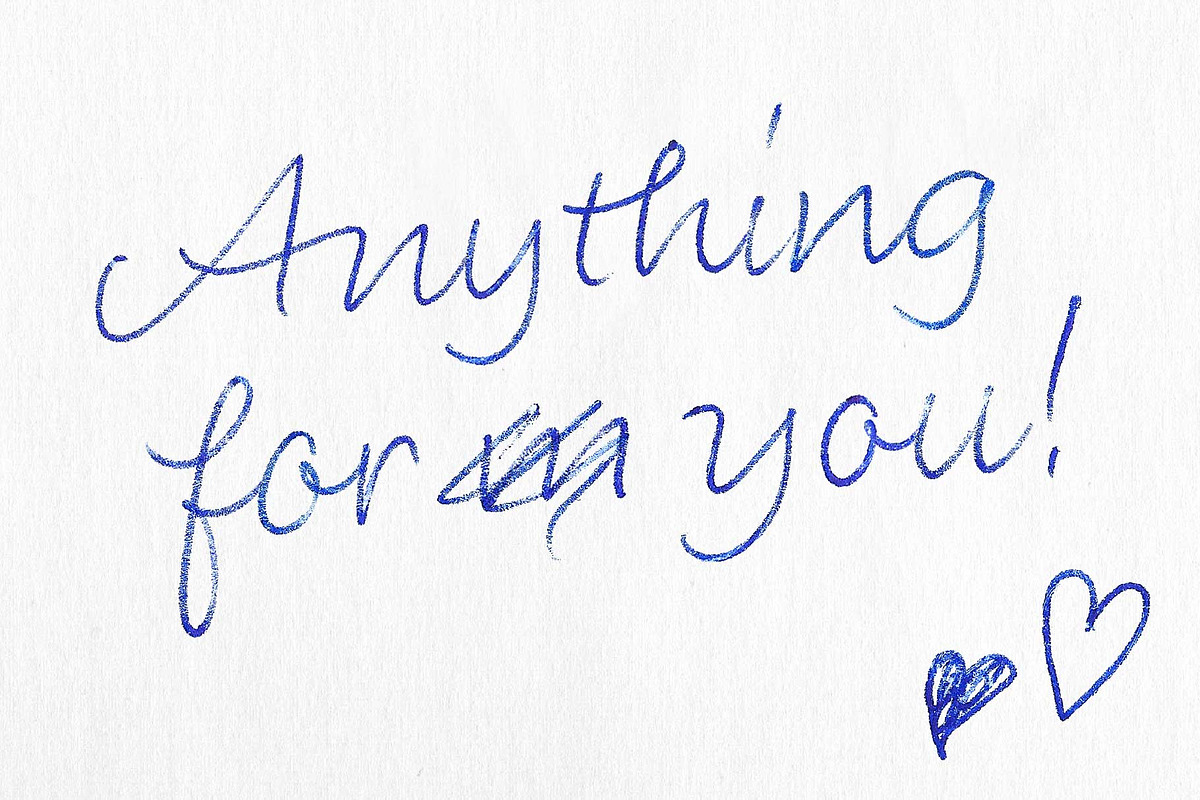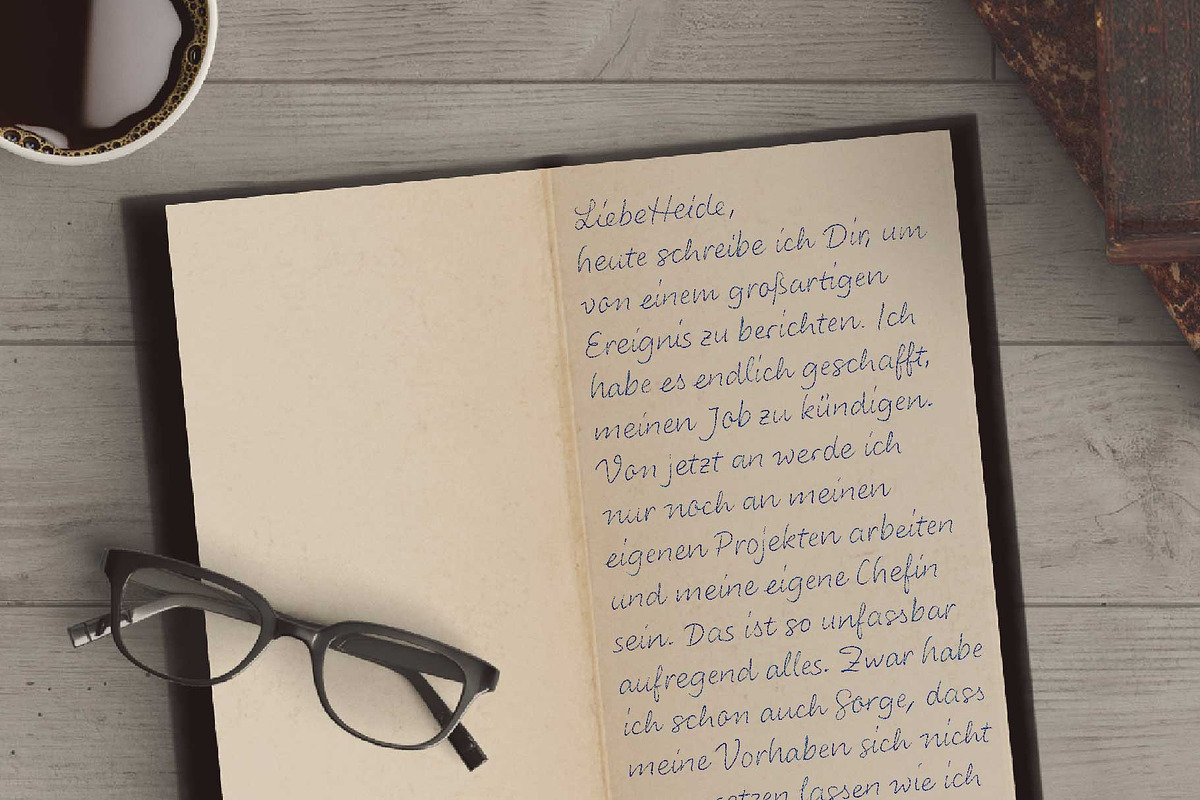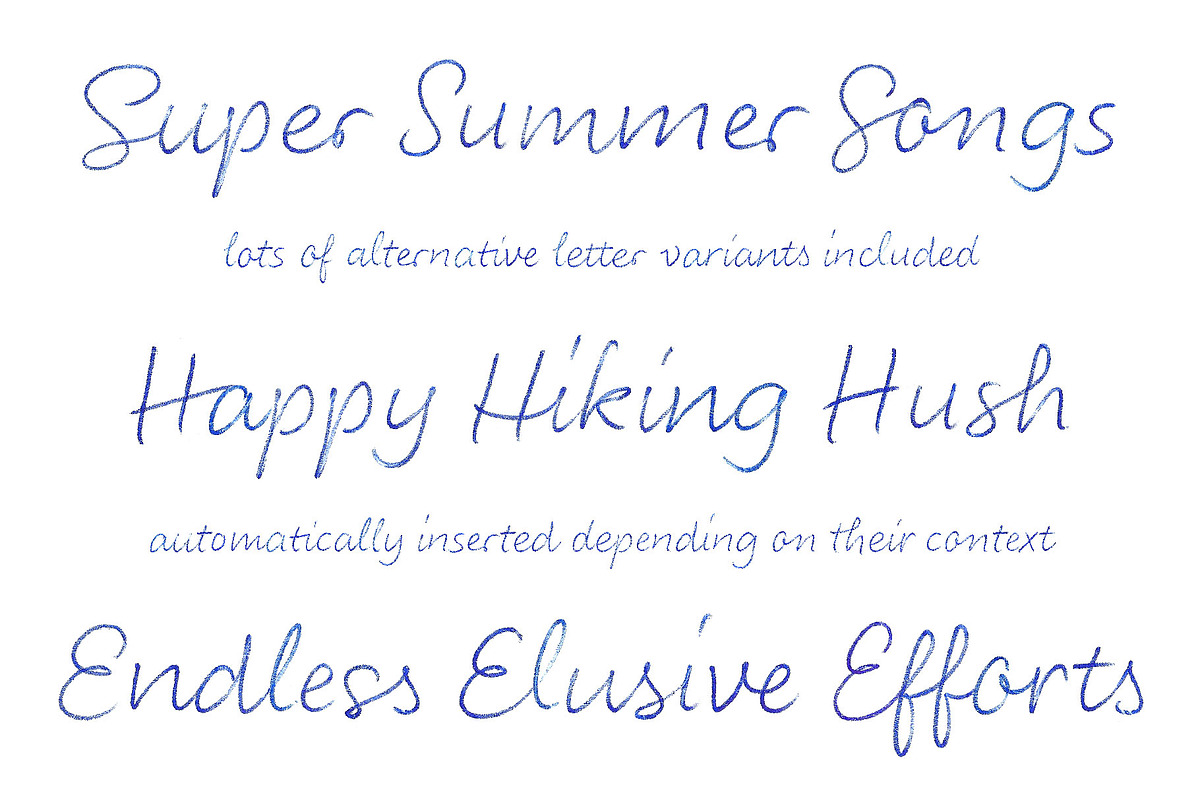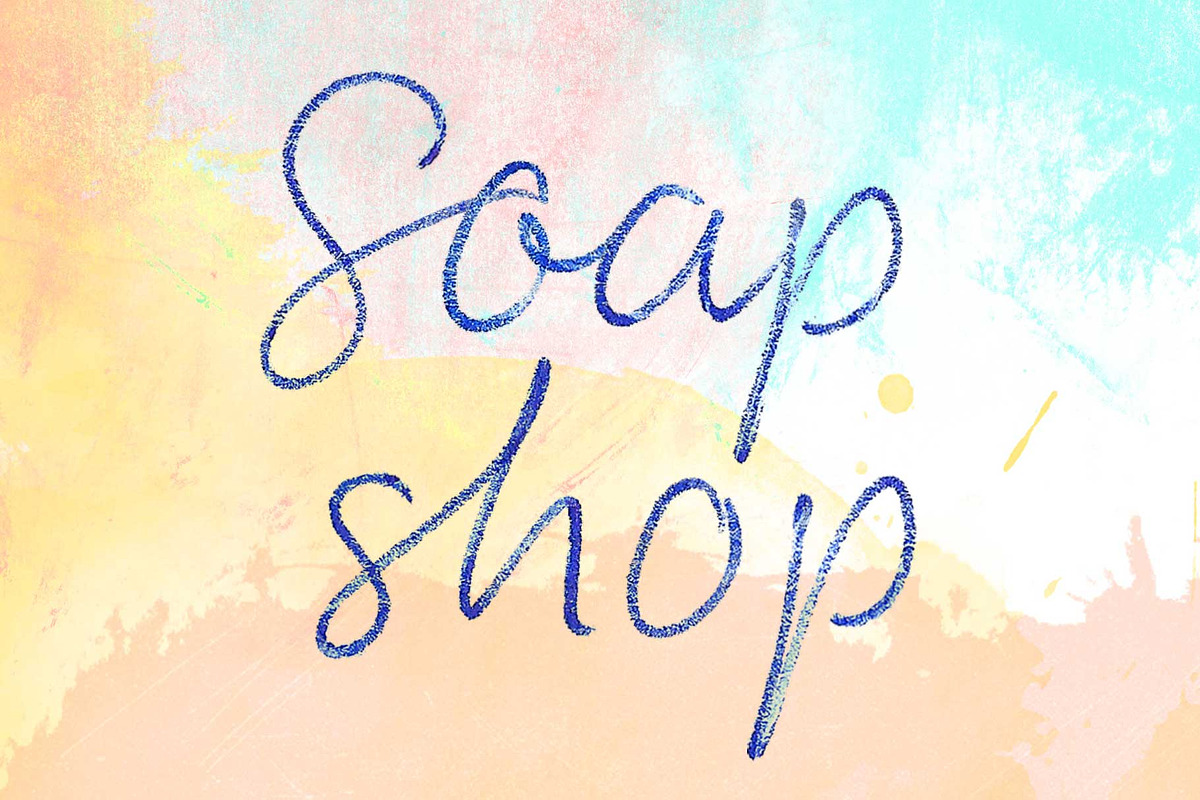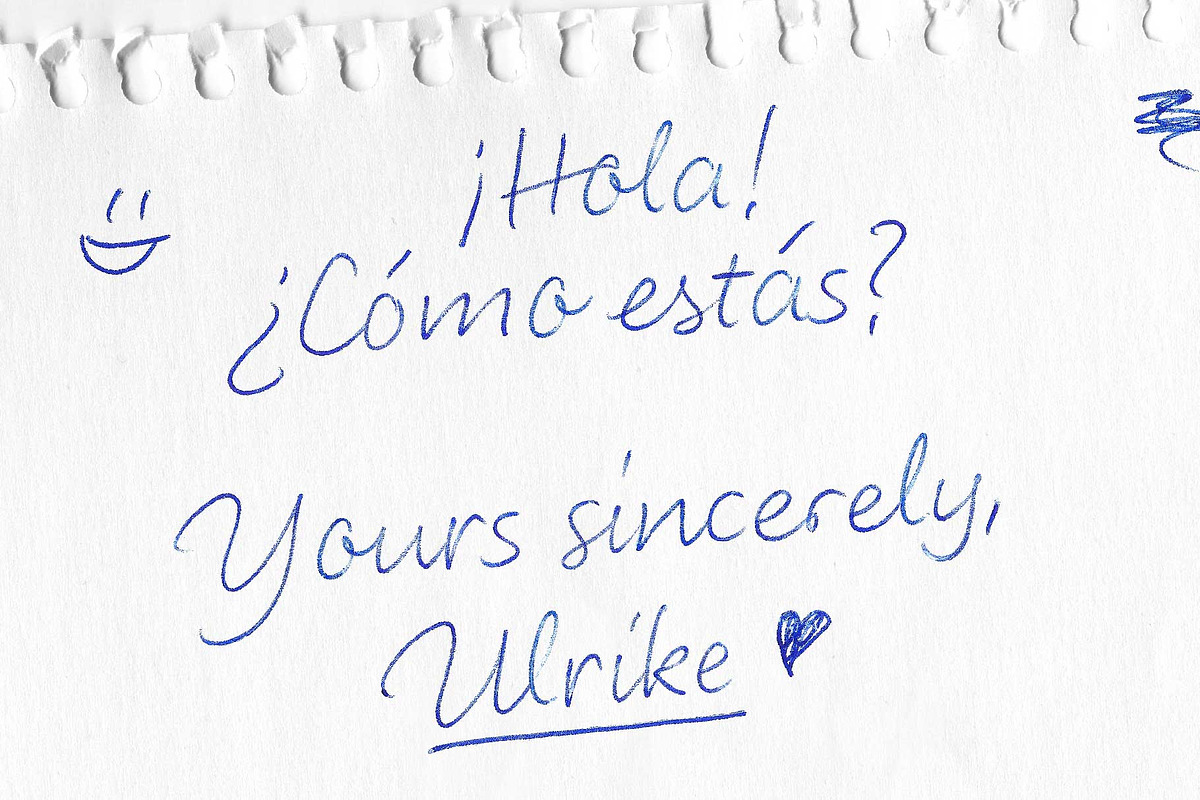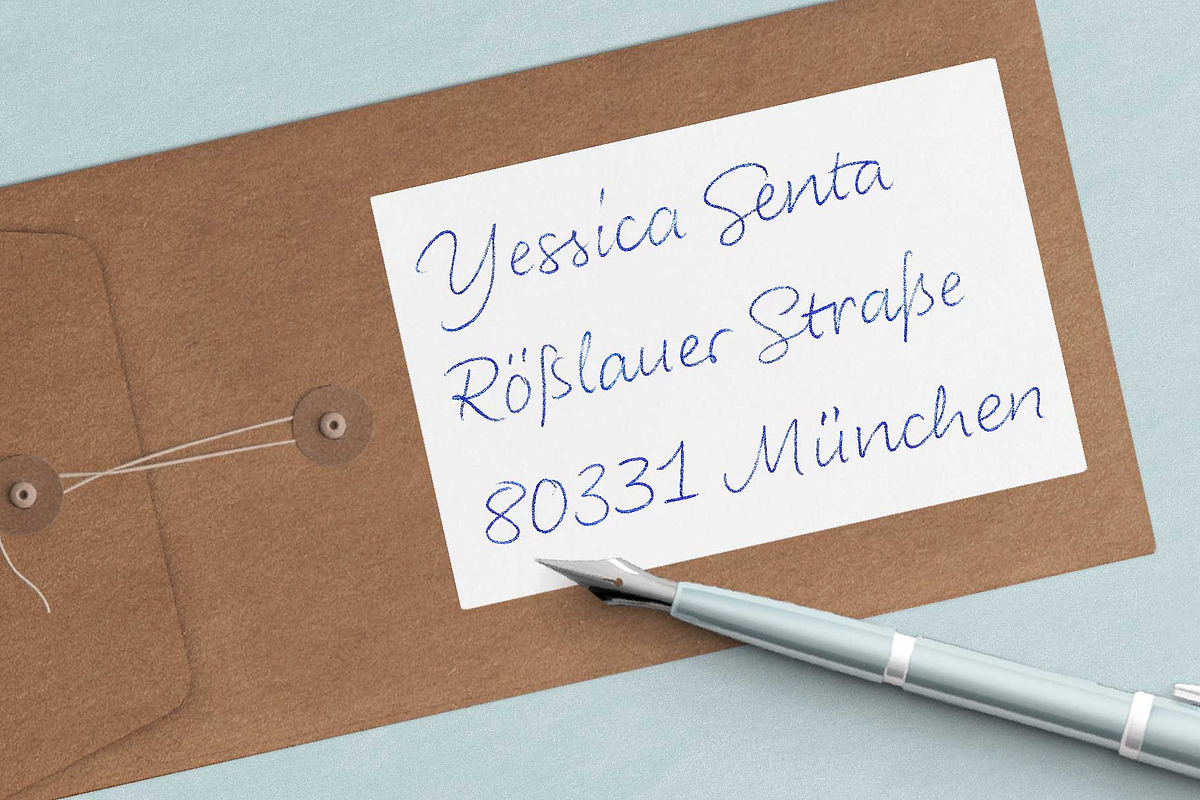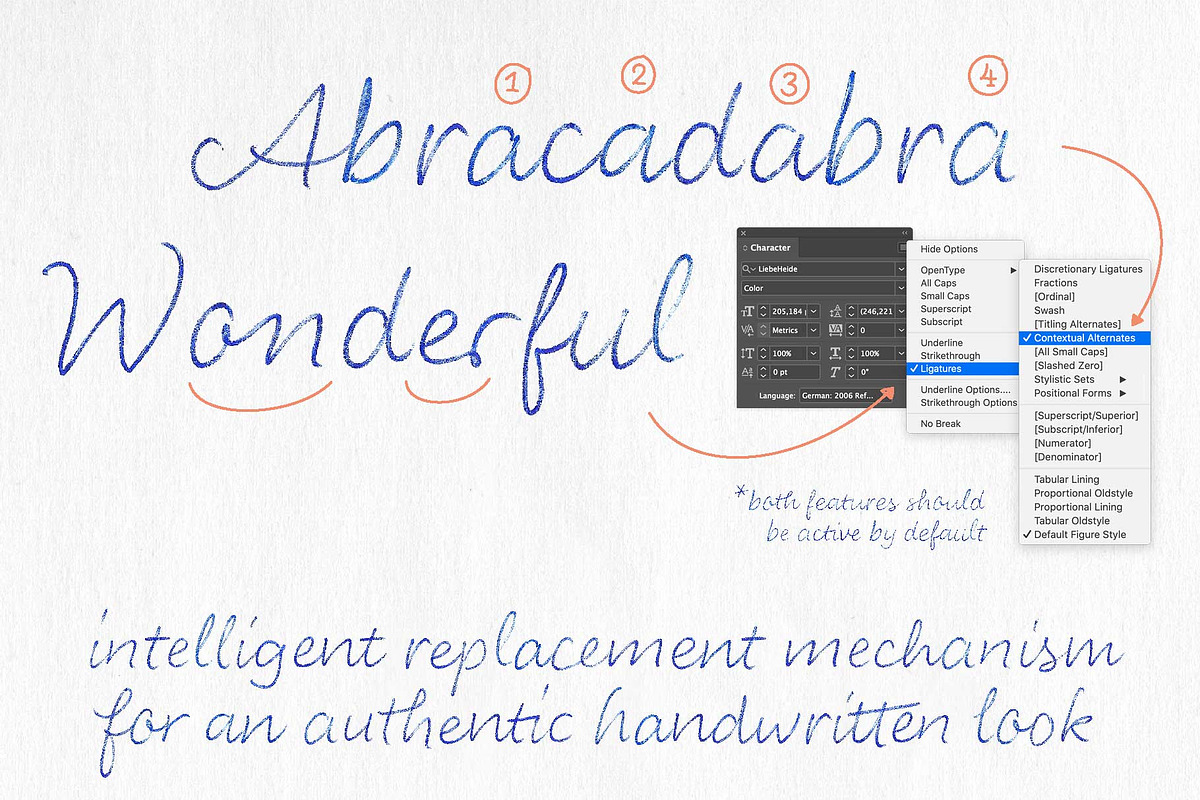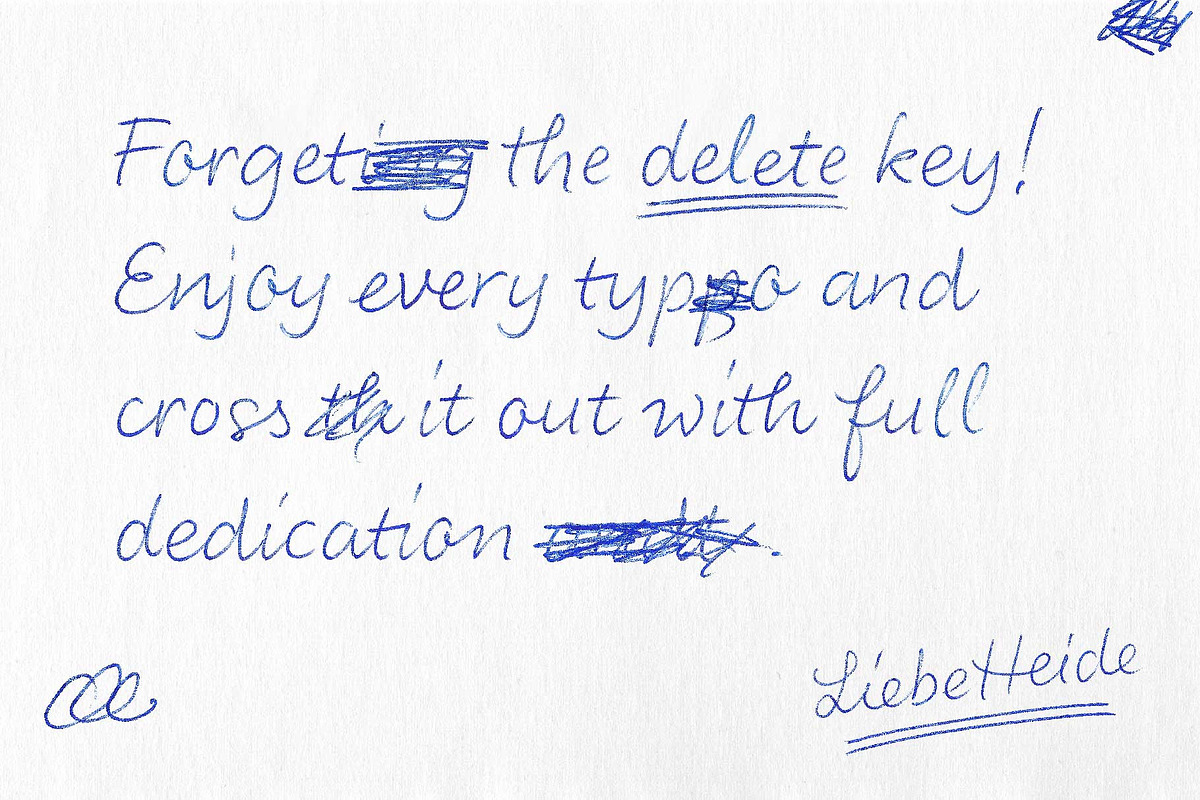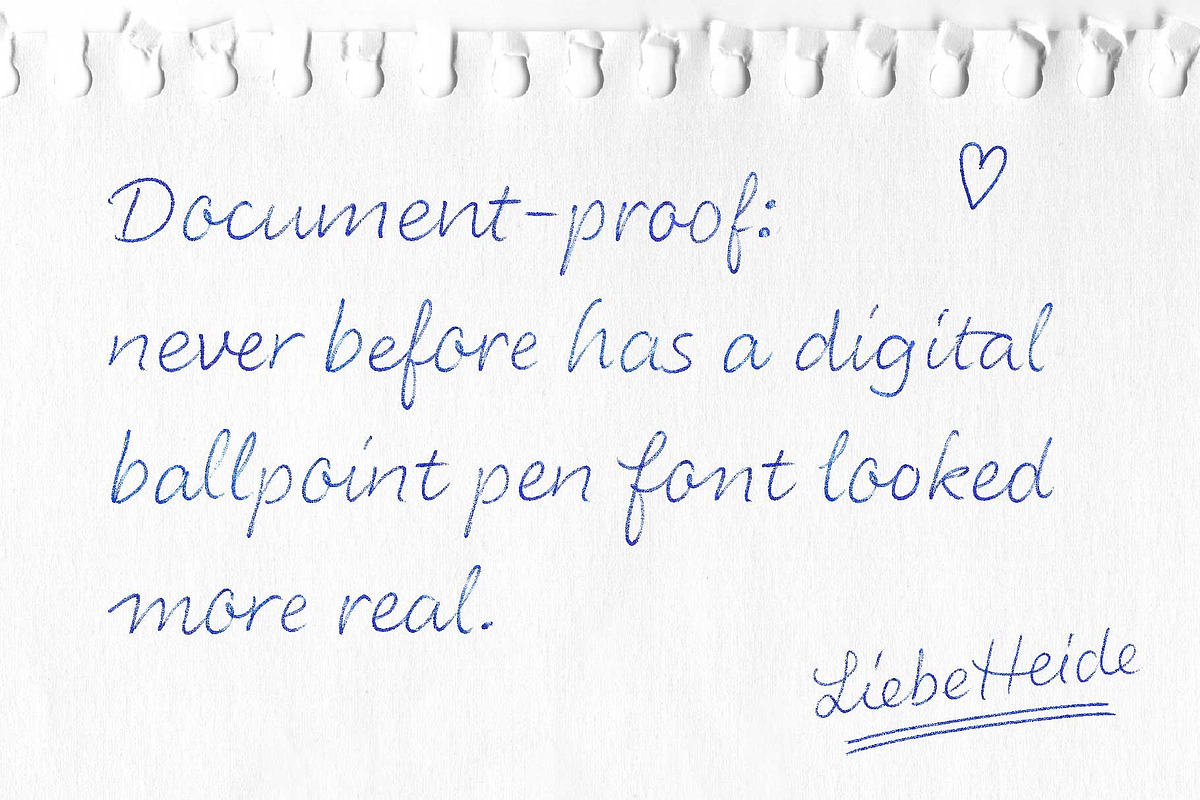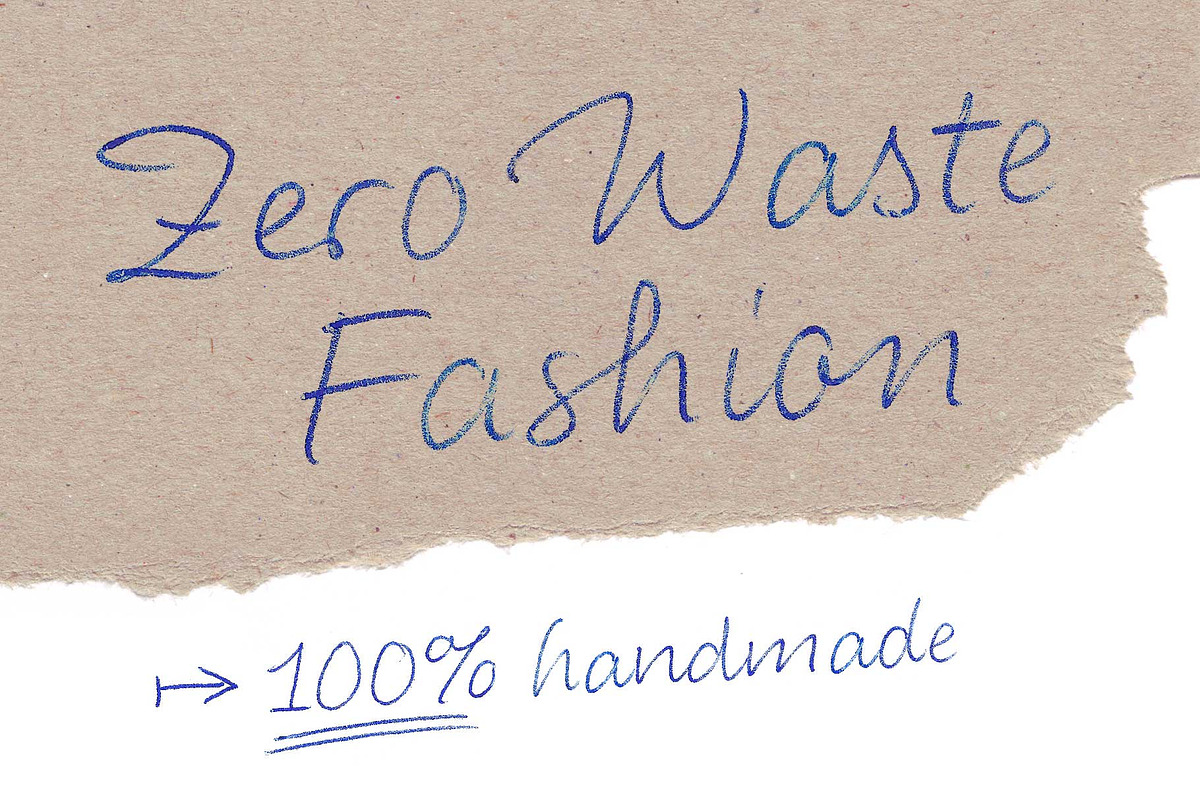
Color Font LiebeHeide
• a color font based on bitmap images
• the color of the font cannot be changed in text editors, but adjusted with Photoshop filters
• lots of alternatives letterforms & ligatures included for natural handwriting look
Amazingly real looking handwritten messages done with LiebeHeide bitmap color font
LiebeHeide, designed by Ulrike Rausch, is based on high-res digitized ballpoint pen letterings, combined with OpenType features such as ligatures and alternate letters.
Typical handwriting attributes like symbols and doodles, up to underlines (single and double) and lots of strikethroughs give this typeface its charm. Most symbols are easily accessible because they assemble automatically, for example the heart from ﹤3, a smiley face from :-) or arrows from -﹥
and --﹥. In total LiebeHeide contains almost 500 glyphs.
Ingenious: to increase performance, the font has 3 different resolutions, so that applications only load the size that is currently needed.
Typical areas of application for LiebeHeide are packaging and editorial design, as well as personalized mailings and the entire spectrum of below-the-line marketing: ambient media, direct marketing, lotteries, flyers, as well as event and guerilla marketing. In social media marketing, this
authentic script draws attention to banners and memes.